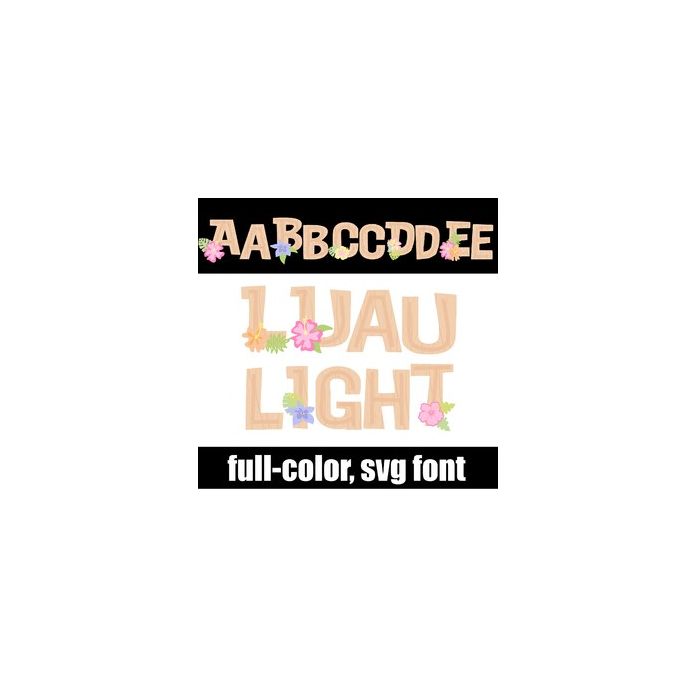
This full-color font features wooden, Hawaiian style lettering with tropical flowers on the uppercase. There is an alt version you can access through your system's character map that contains additional colors of all the letters.